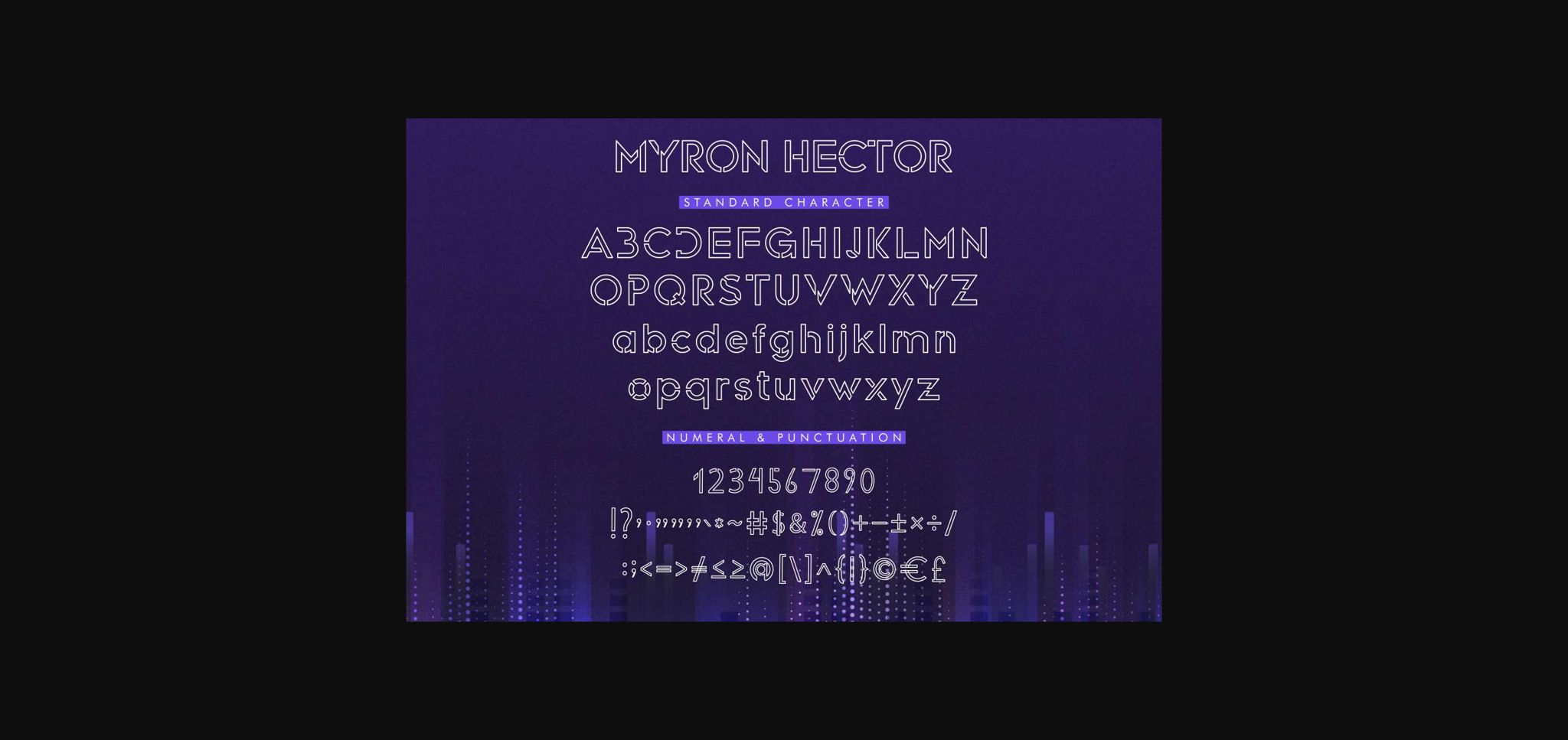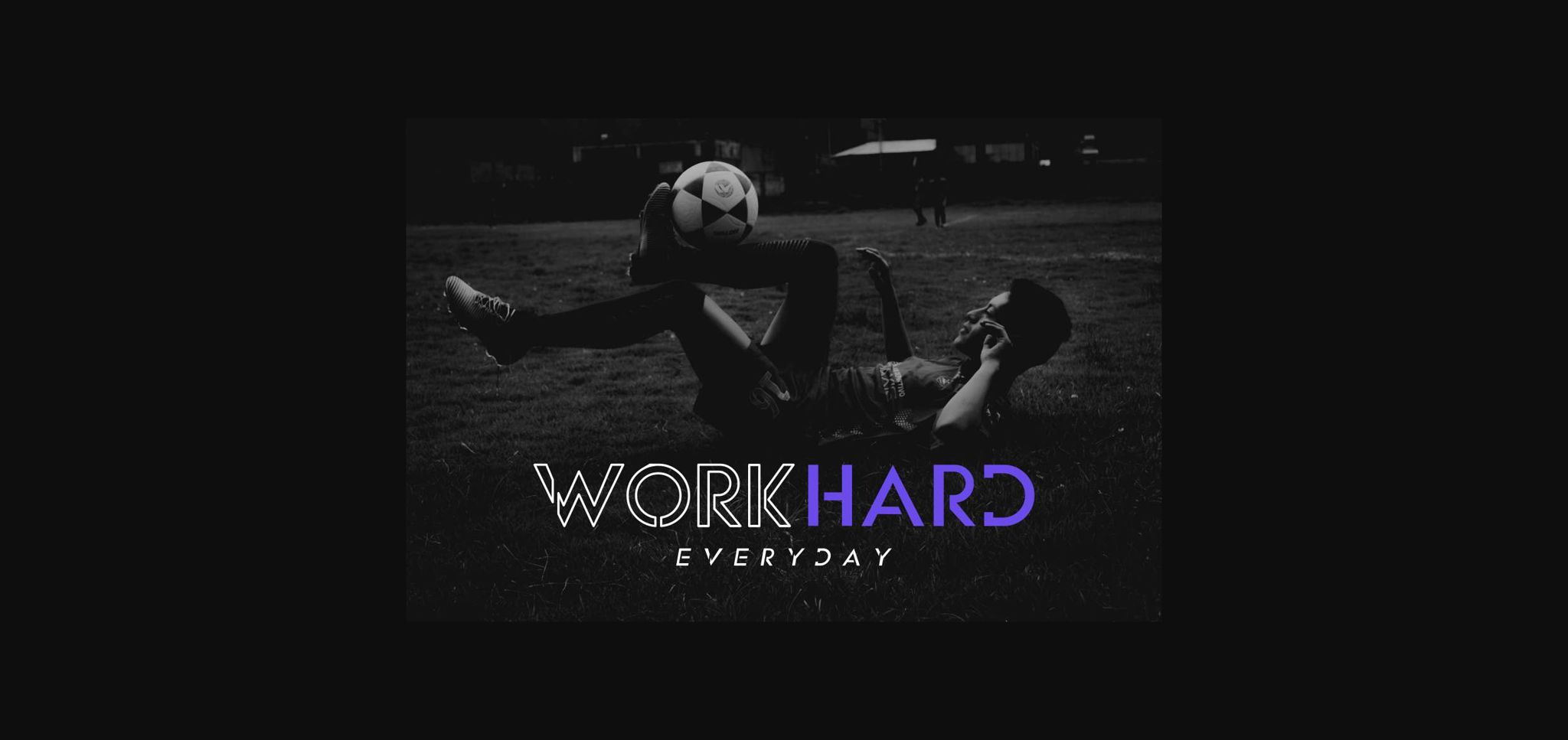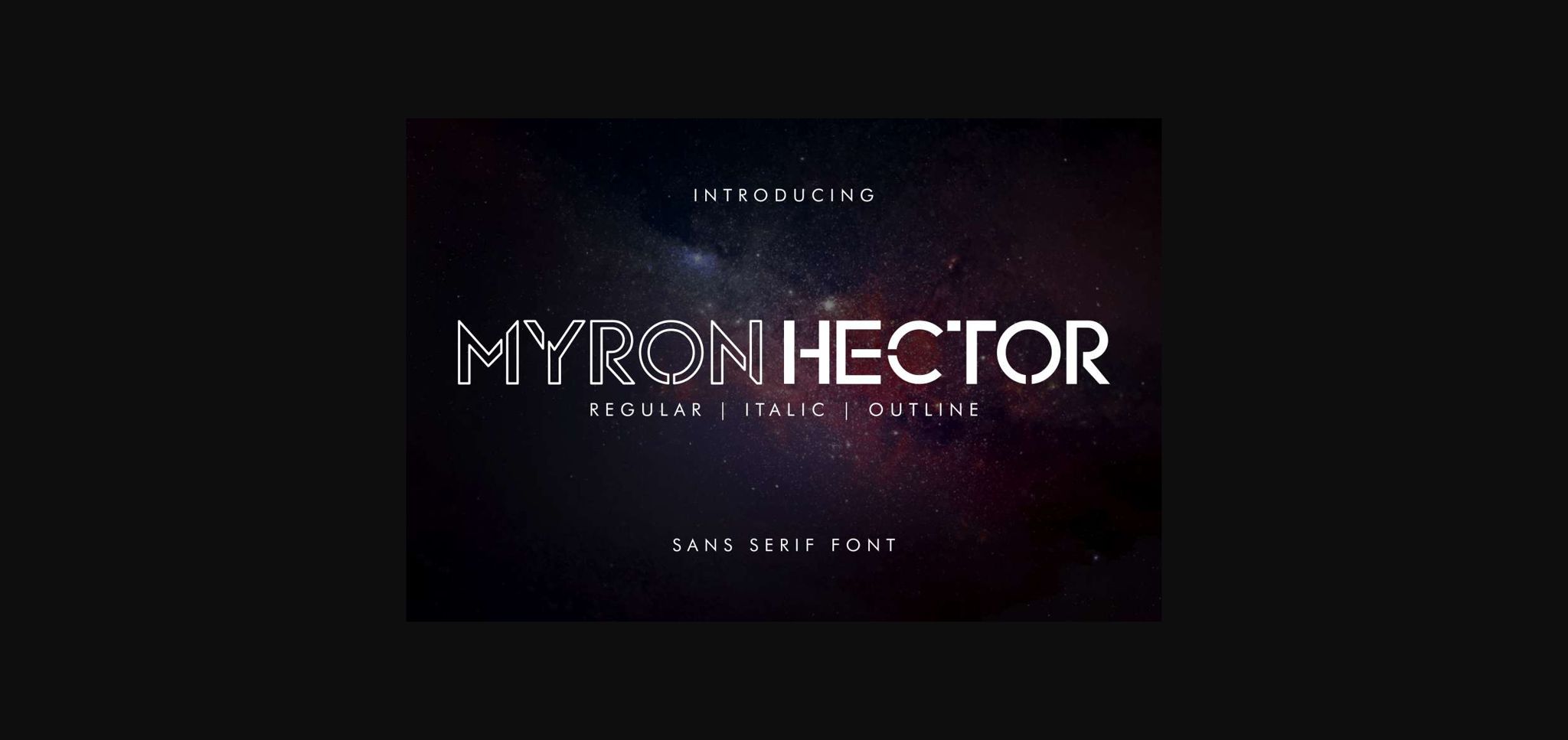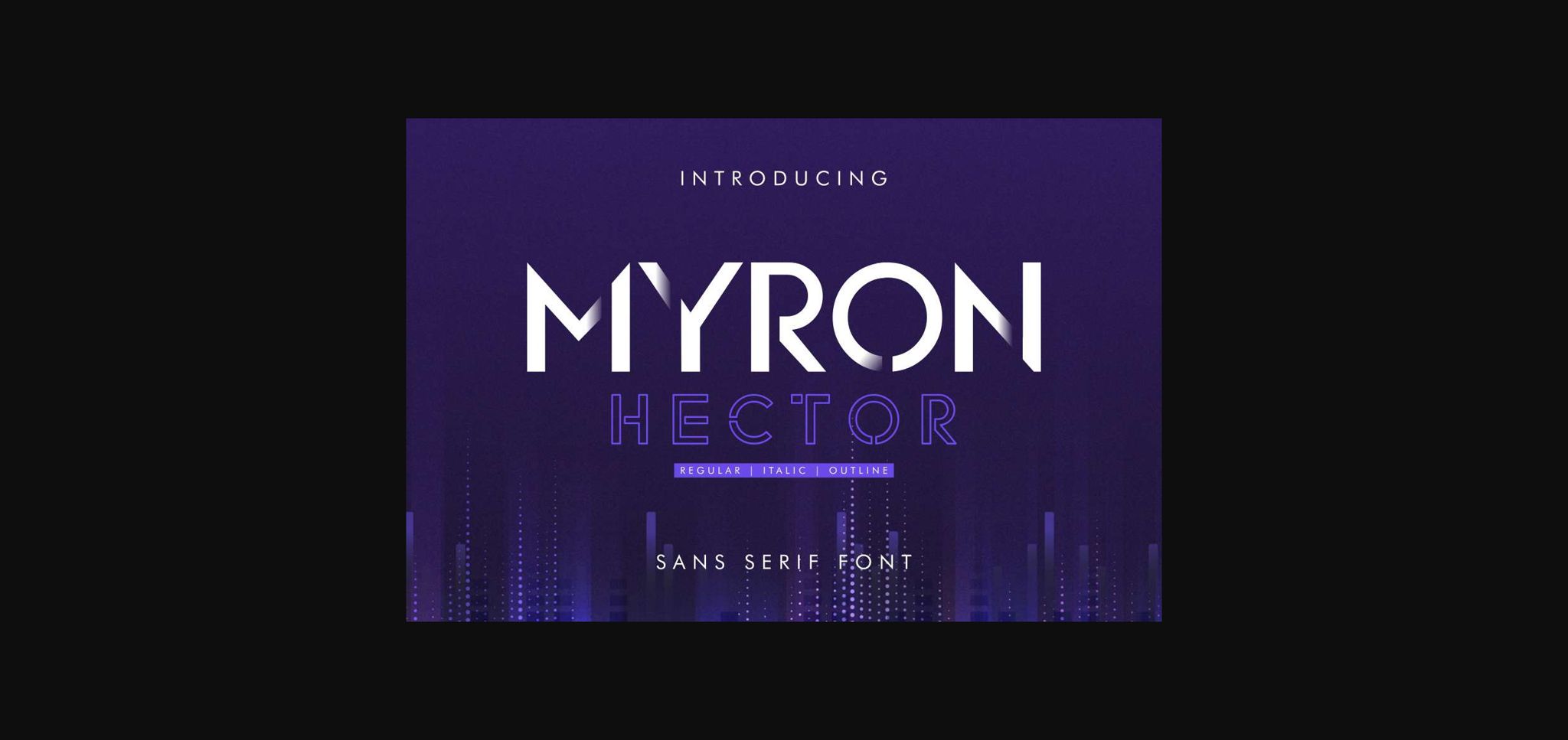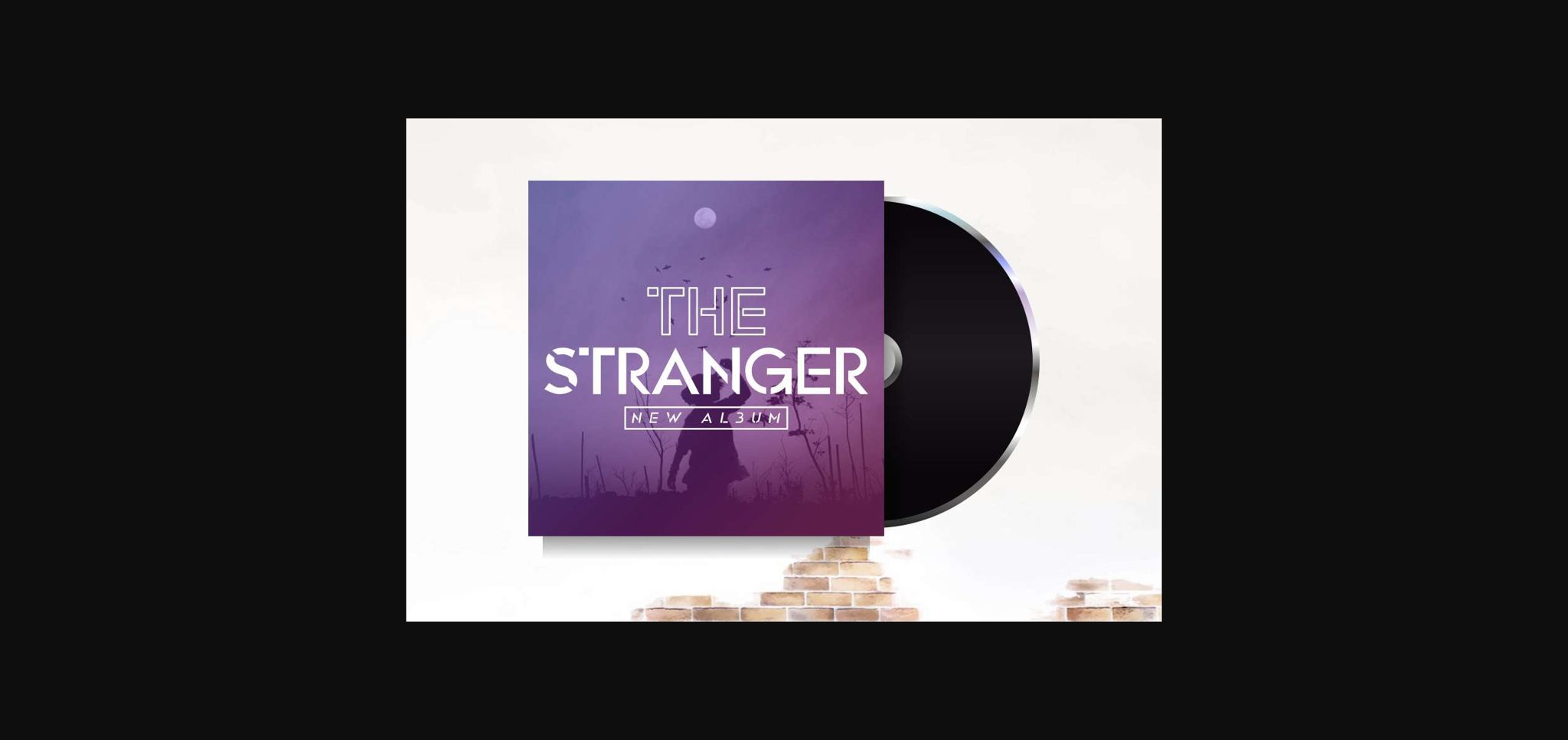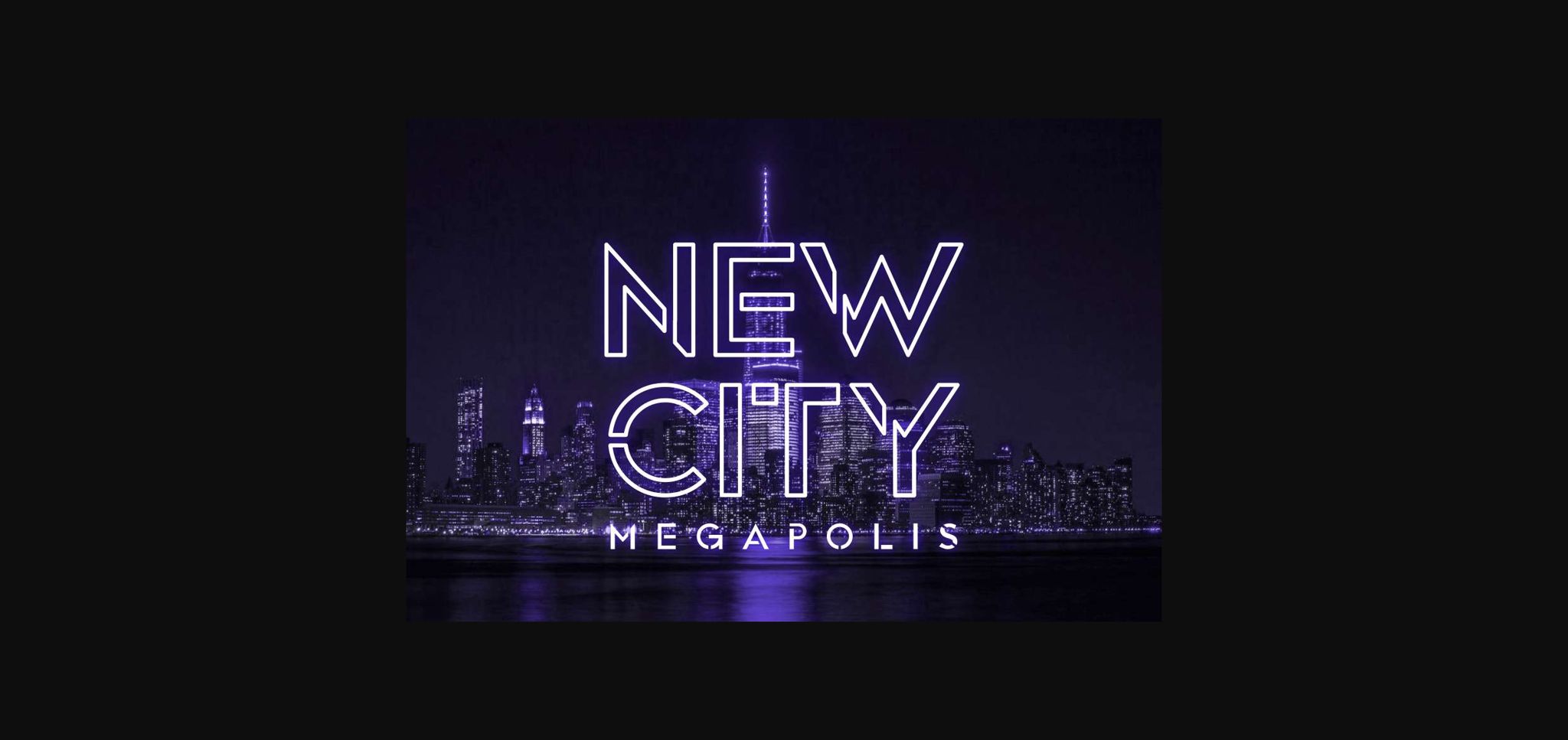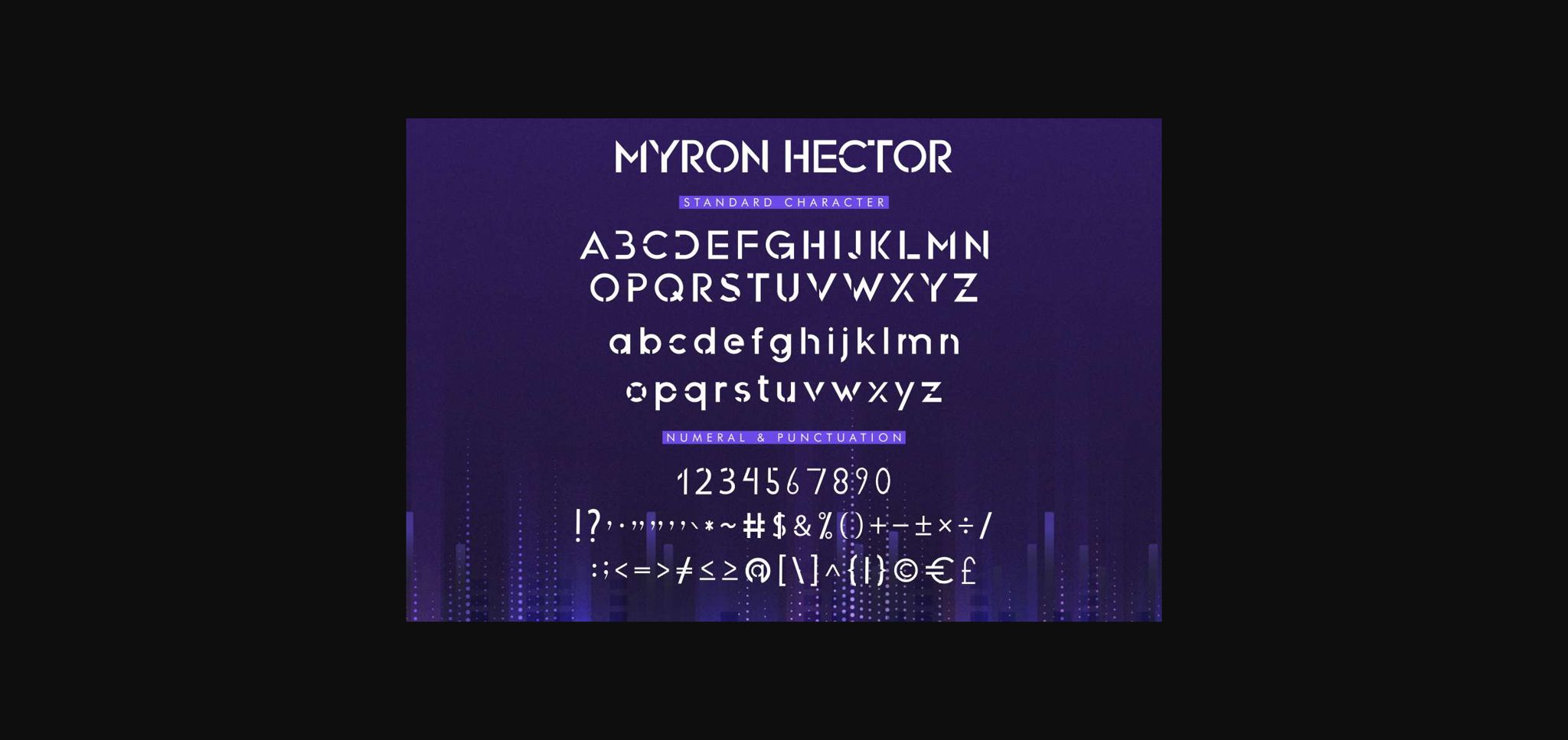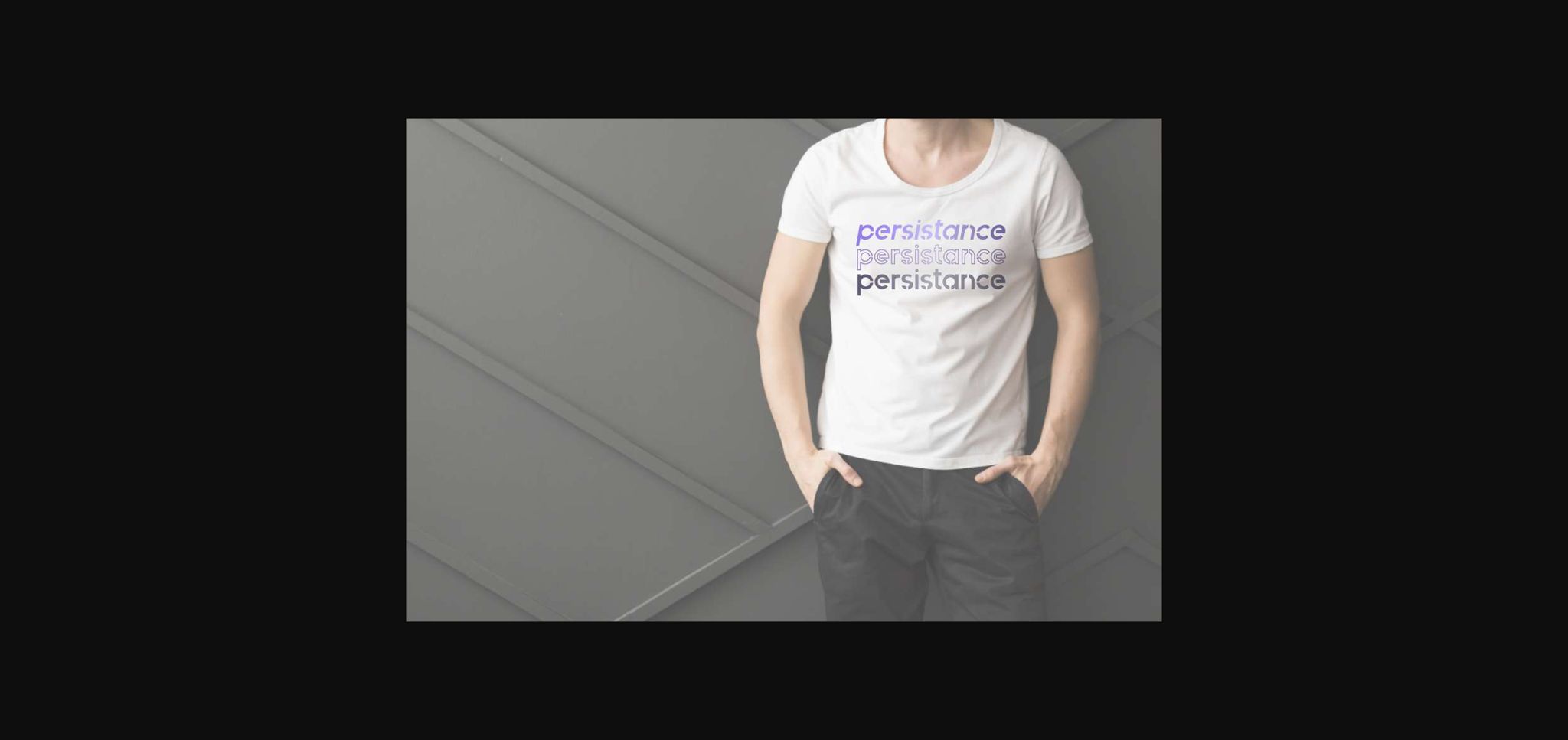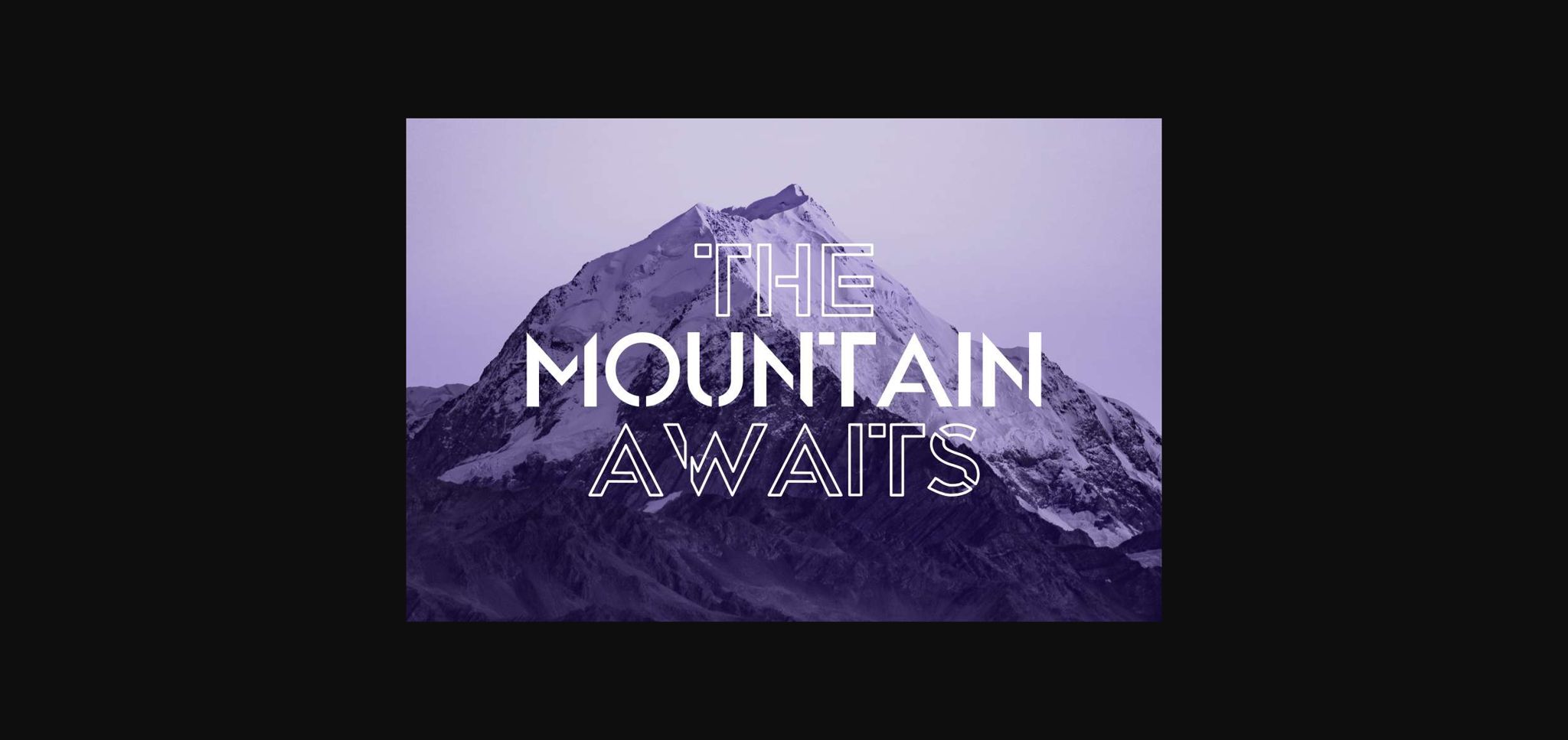
Myron Hector Font
About Myron Hector Font
Myron Hector is a bold and modern sans serif font. It will look particularly adept when used in logos, branding, packaging design, and much more. This masterfully designed font is a true must-have!